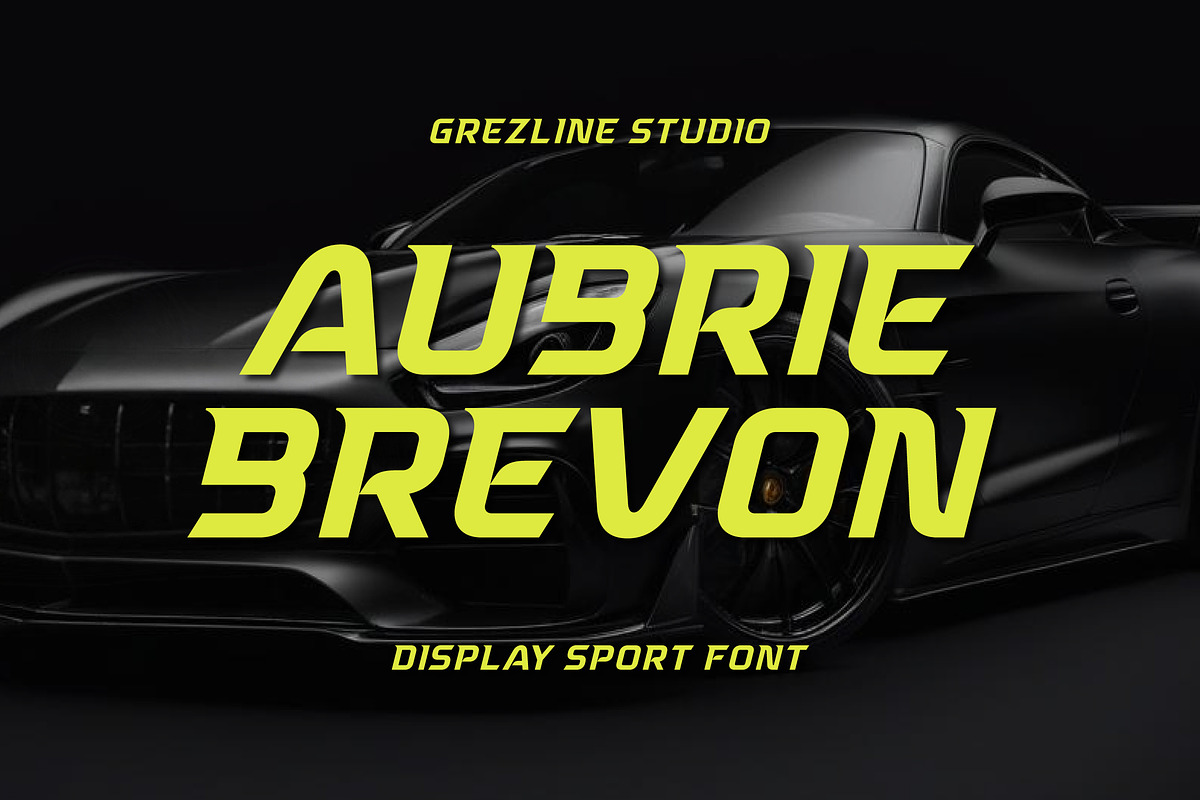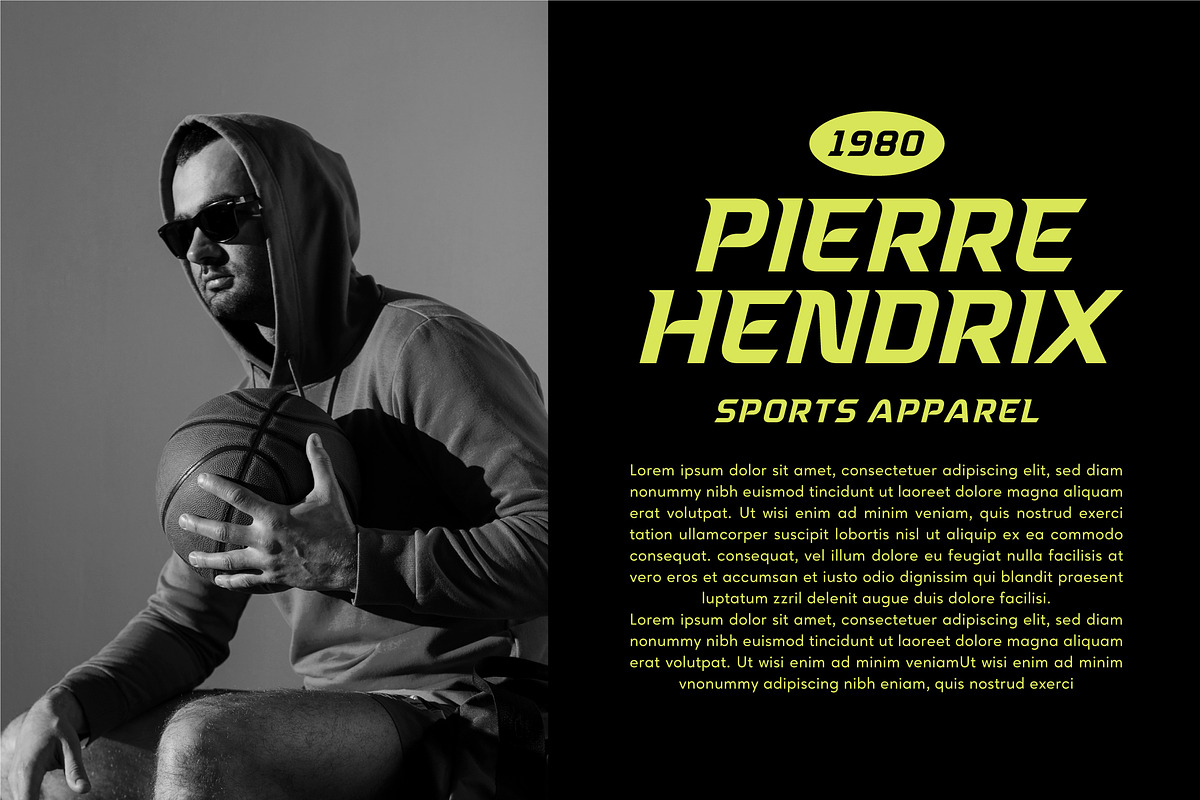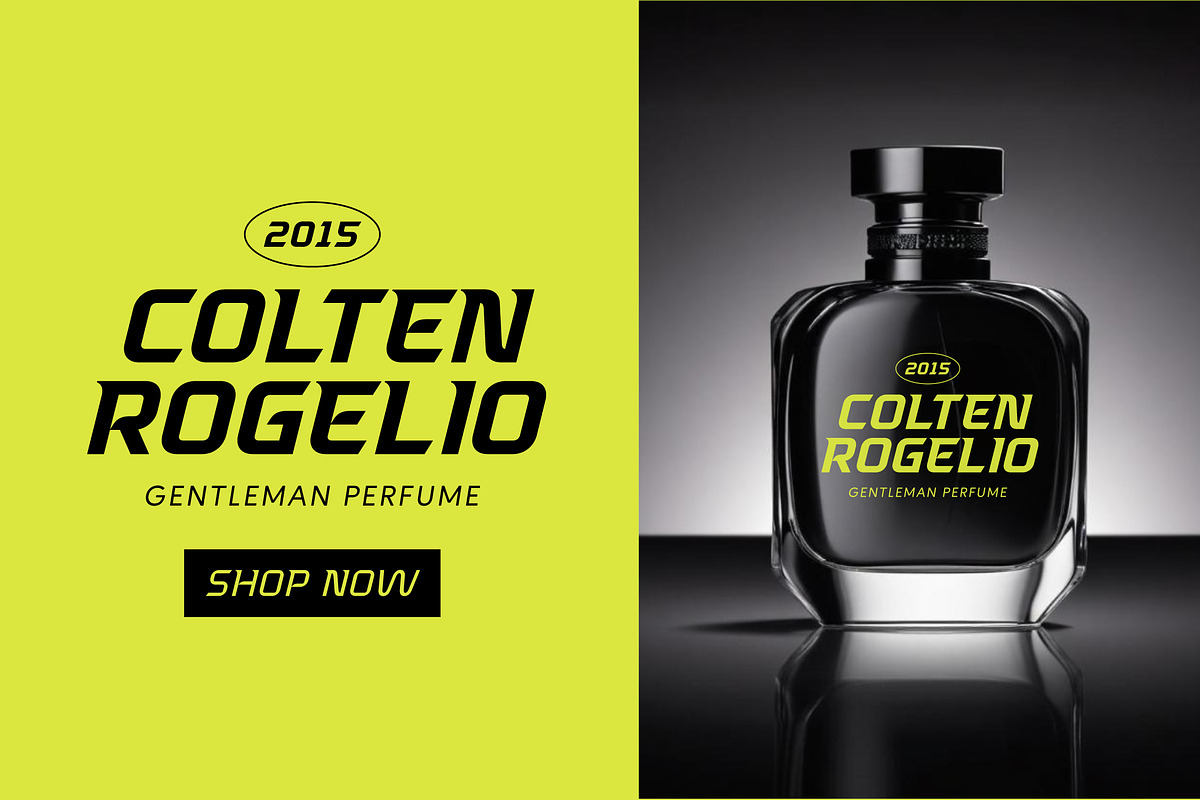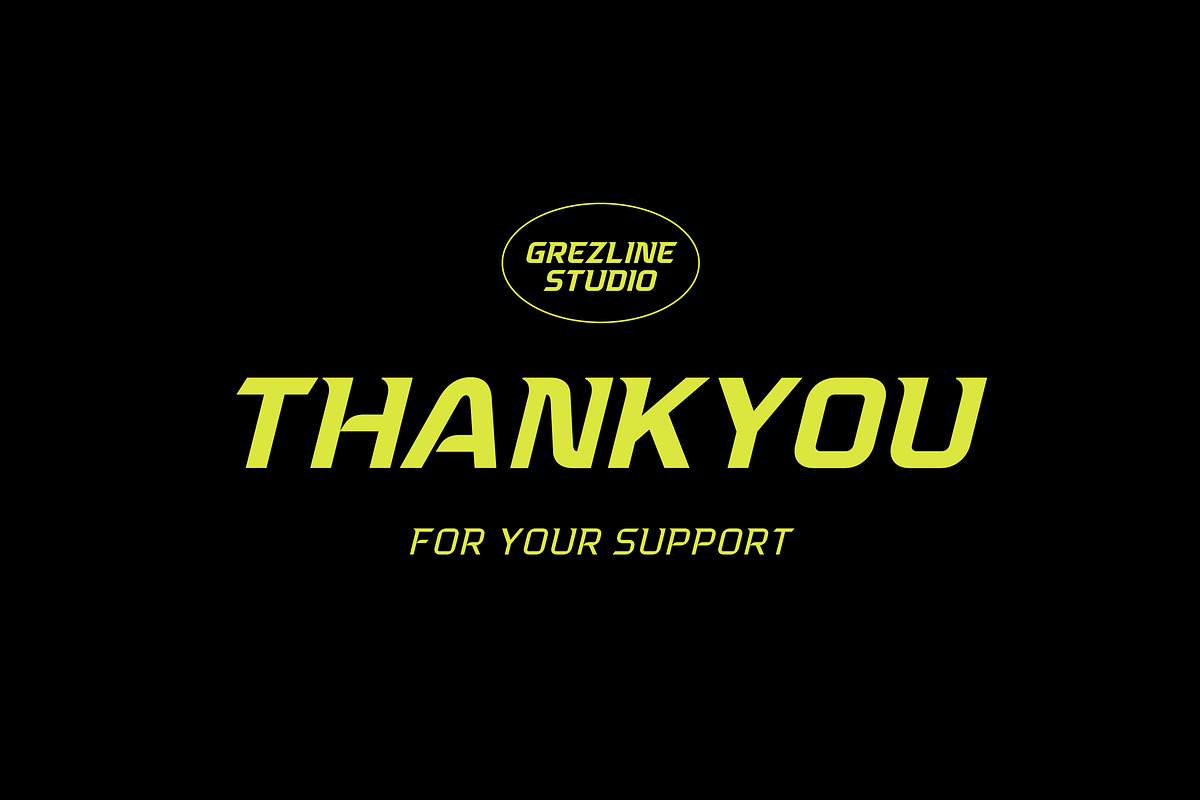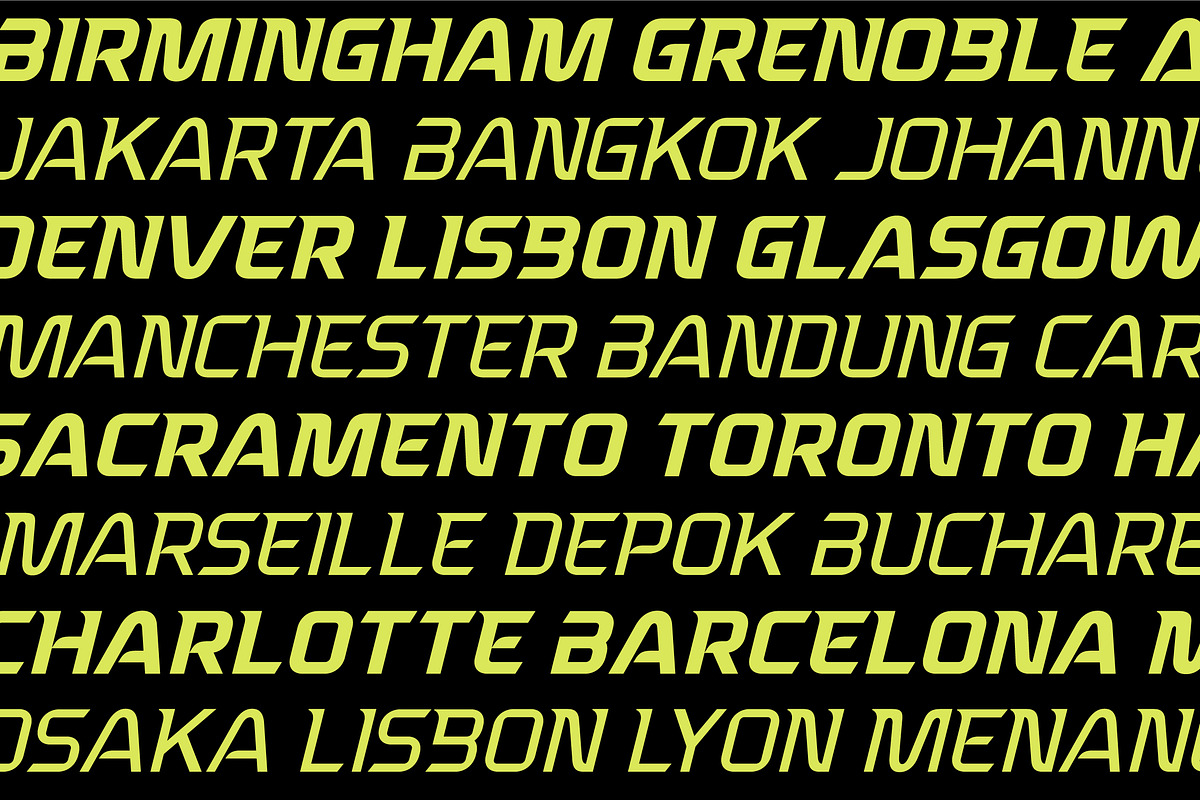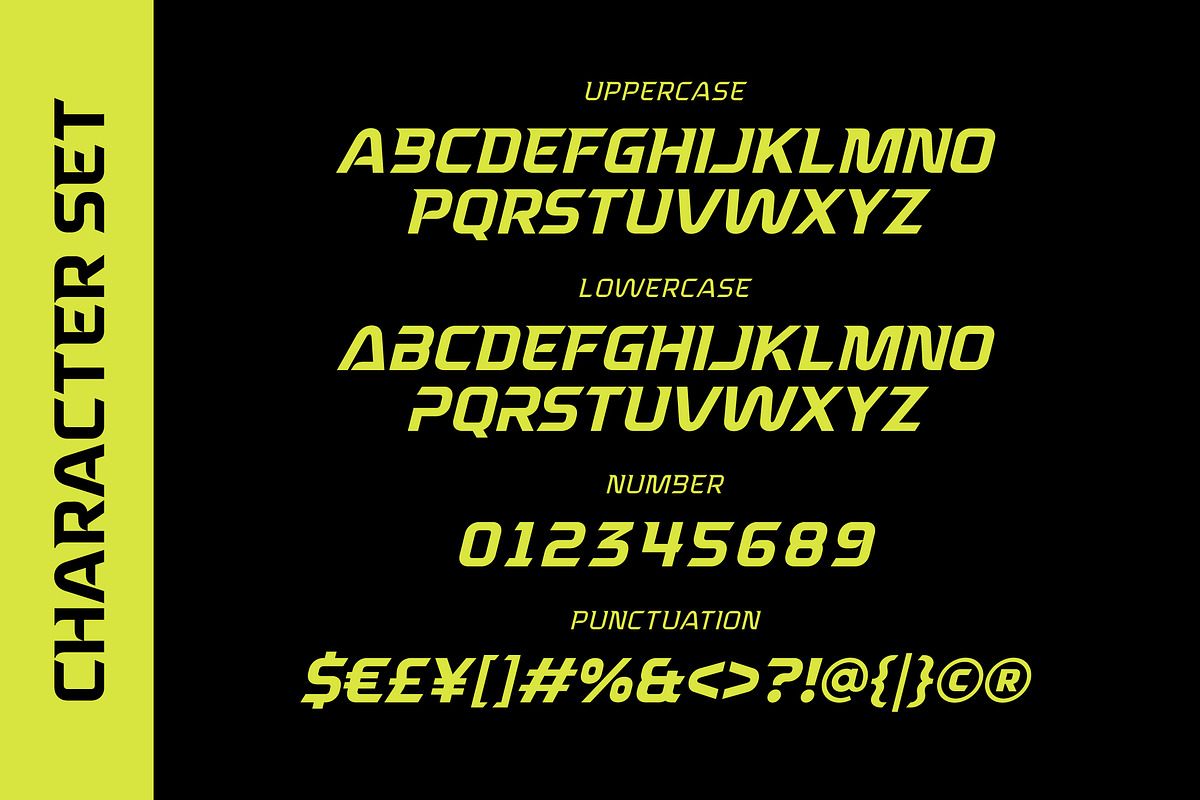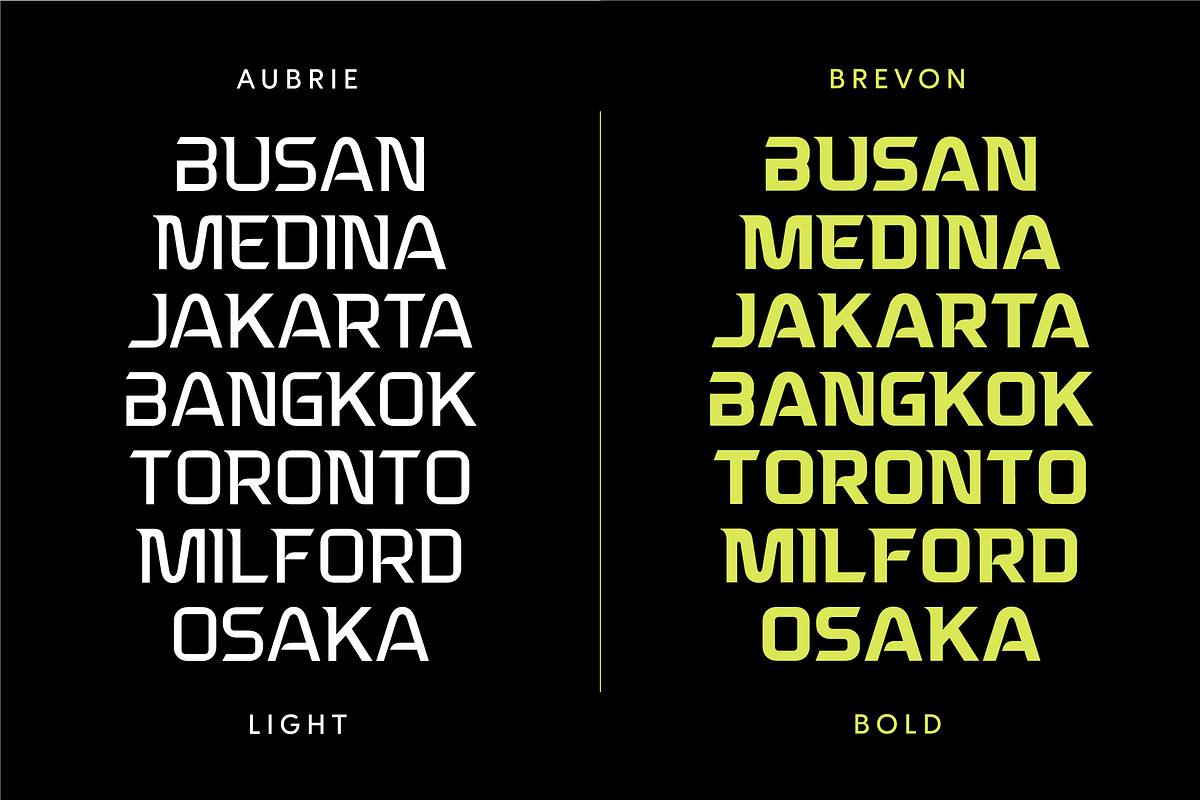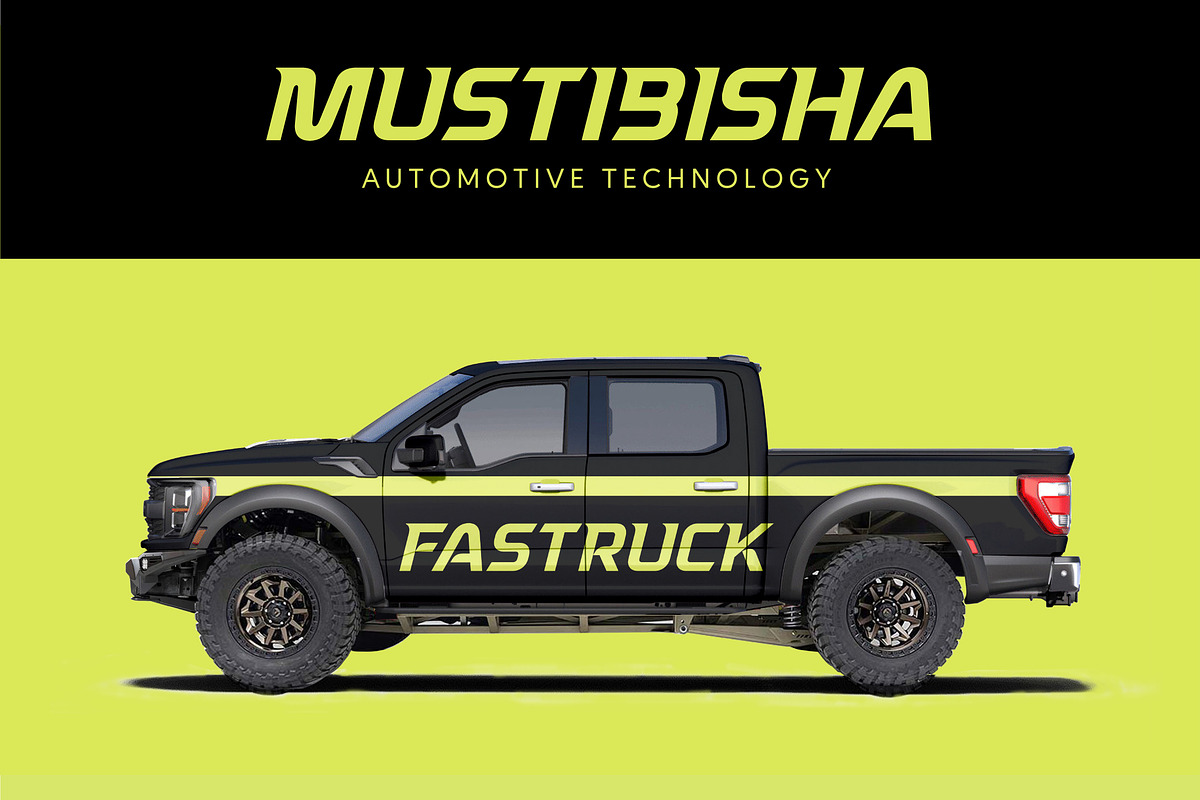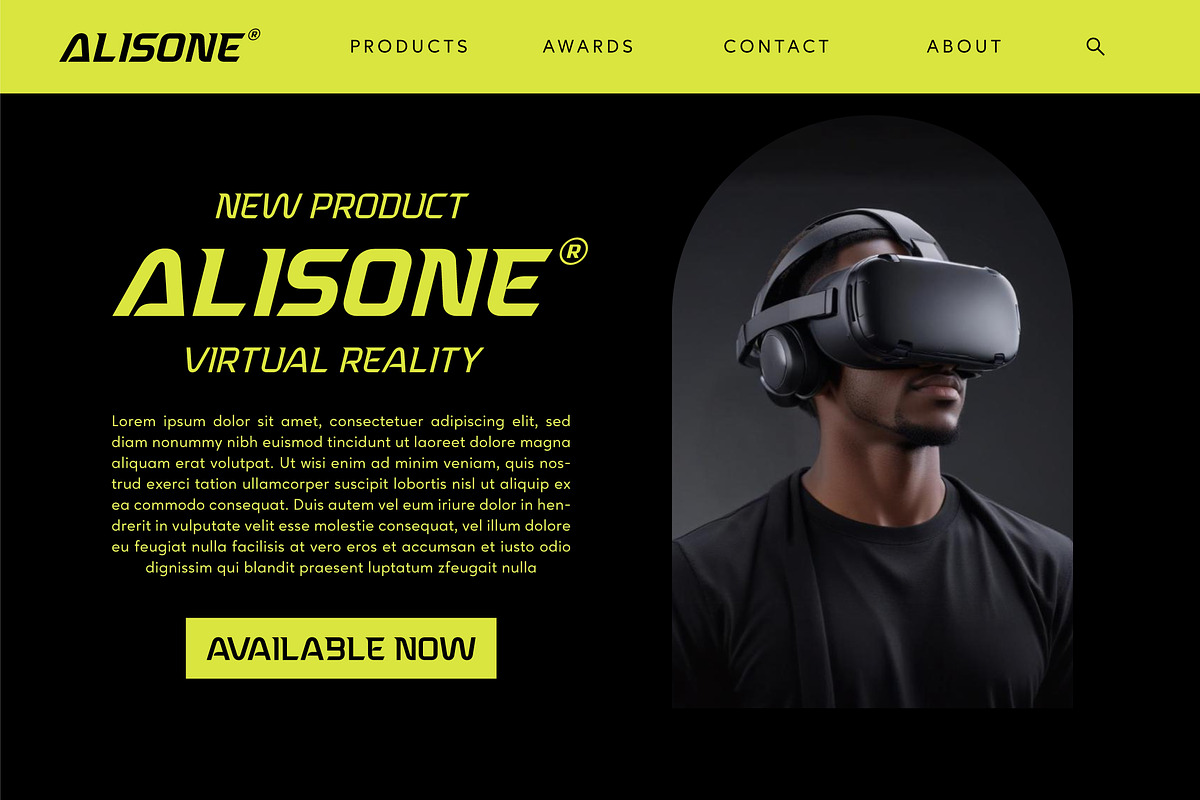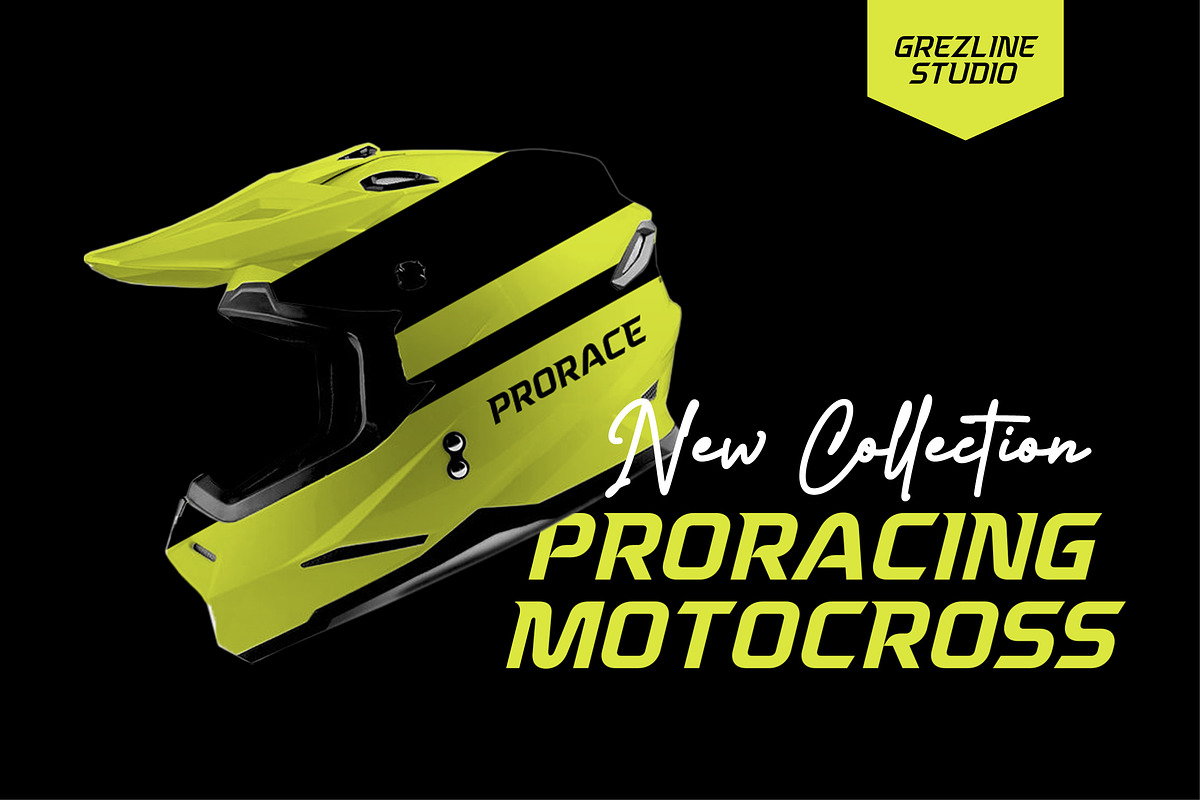
Aubrie Brevon - Display Sport Font
Aubrie Brevon is a display sport font family that consist of six fonts. Aubrie Brevon font is ideal for logos, headlines, sports branding, race car graphics, athletic apparel, event posters, dynamic digital content and other creative projects that demand strong personality. Its futuristic and modern look making it the ideal choice for projects that need to inspire and motivate.